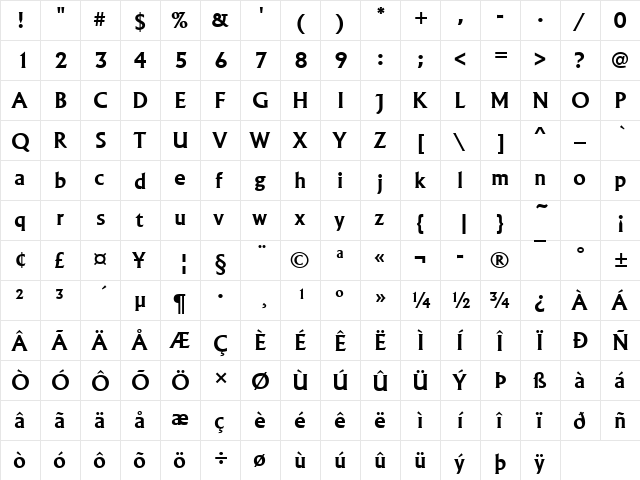
LapidarSerNo2URWTDemBol Regular
Design Context for LapidarSerNo2URWTDemBol Typeface
LapidarSerNo2URWTDemBol takes a measured approach to typography — its balanced proportions and neutral character make it a reliable workhorse for both digital and print work.